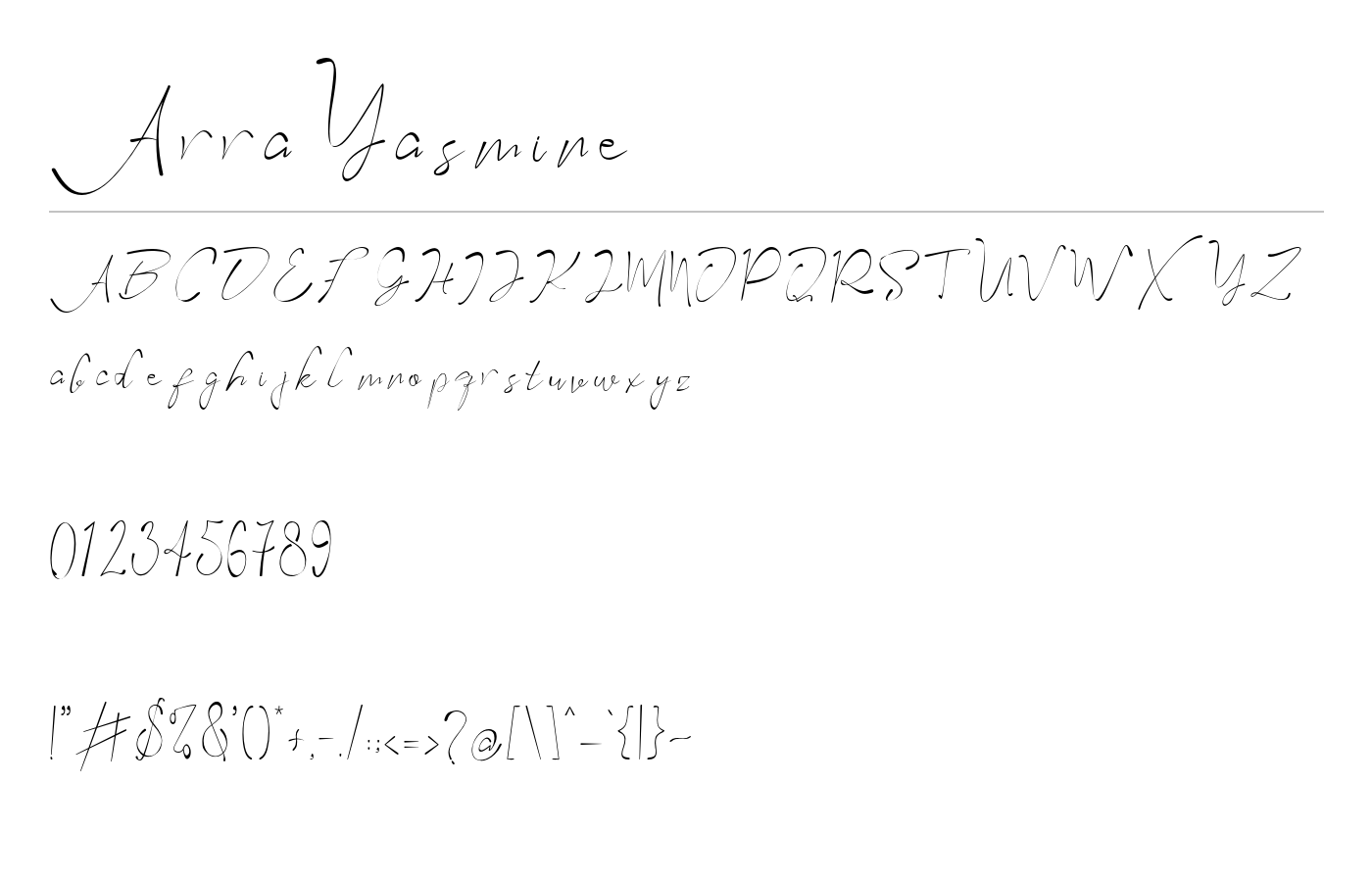
Arra Yasmine is a delicate, handwritten script font characterized by its thin, graceful strokes and elegant, airy letterforms. Its slender, slightly irregular lines give a personal, artistic touch that works beautifully for feminine, romantic, or creative branding and invitations. This font shines in designs that seek a subtle, refined, and intimate feel rather than bold or heavy display.
Arra Yasmine Font
| Font family | Arra Yasmine Font |
| Designer | WrasStudio 2019 |